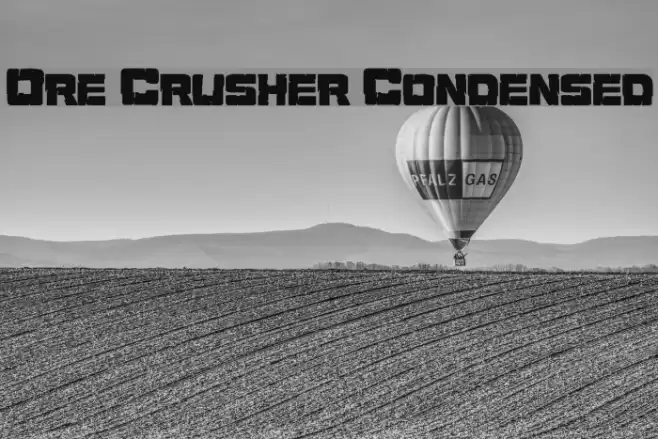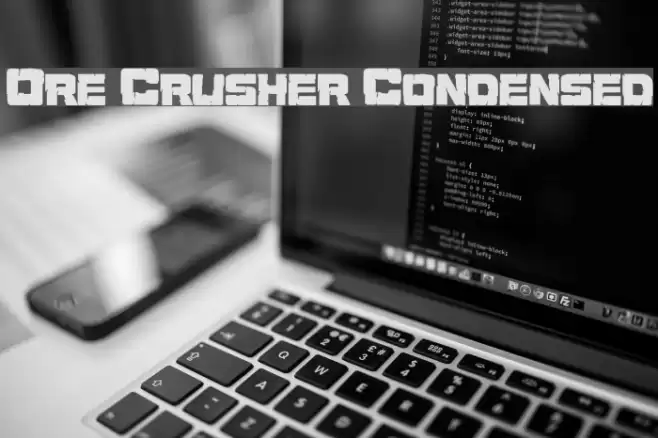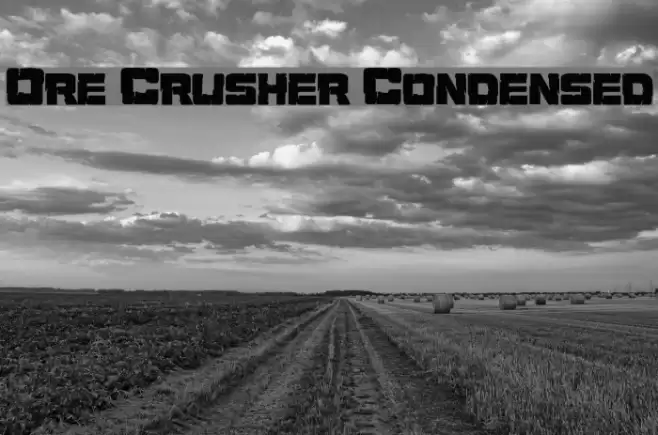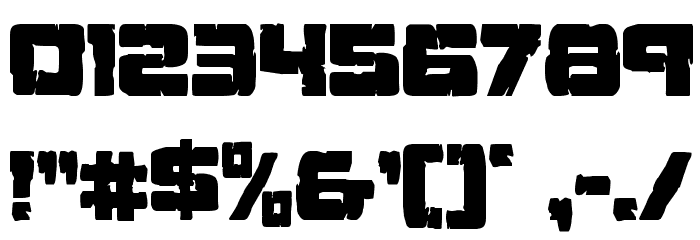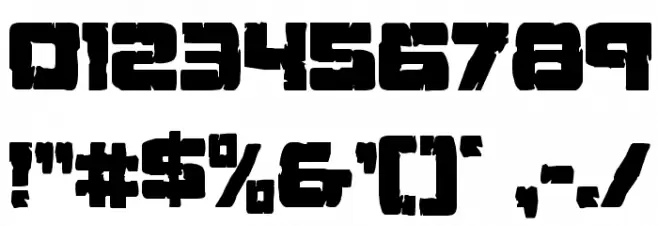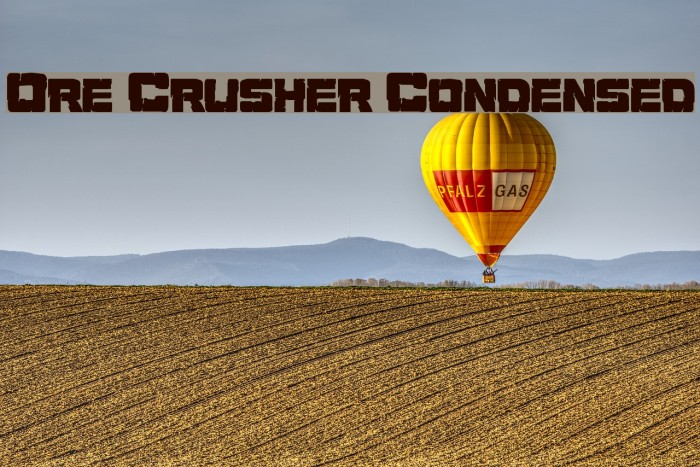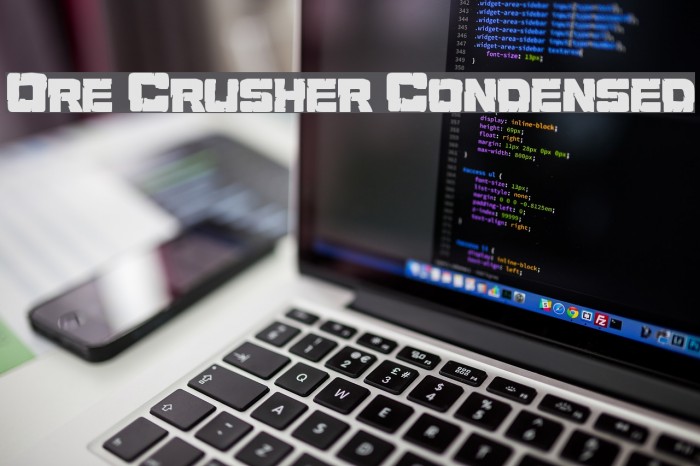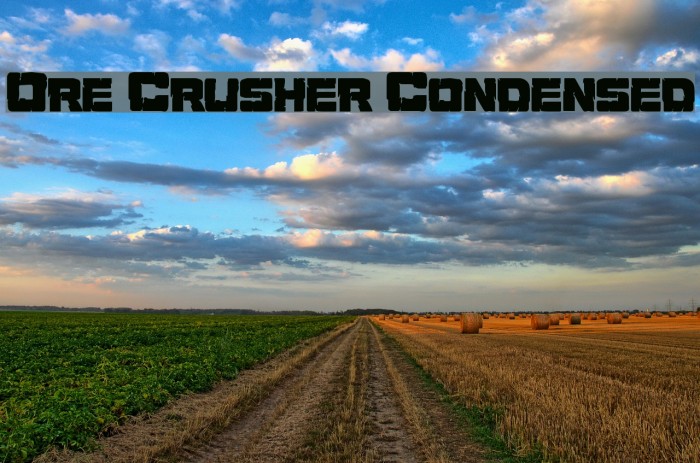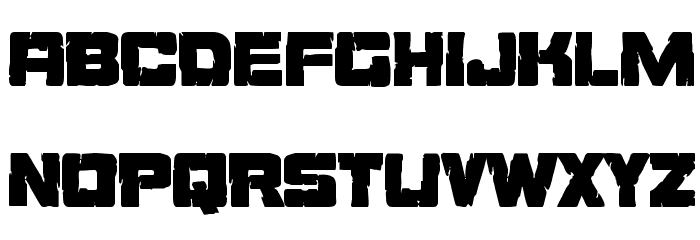
Ore Crusher Condensed Font
Ore Crusher Condensed Description
This font features a rugged, industrial design with a bold and impactful presence. The characters are heavily condensed, giving it a compact and powerful look. The edges are rough and uneven, resembling a distressed or eroded texture, which adds to its raw and gritty aesthetic. The uppercase and lowercase letters maintain a consistent style, with the numbers and special characters following suit. This font is designed to grab attention and convey strength and durability.
A rugged, industrial font with a bold, distressed appearance from Fancy fonts.
- Proposed Projects: Ideal for projects that require a strong, industrial feel such as construction branding, heavy metal band logos, or video game titles.
- Character Spacing: Tight
- Overall Style: Industrial, Gritty